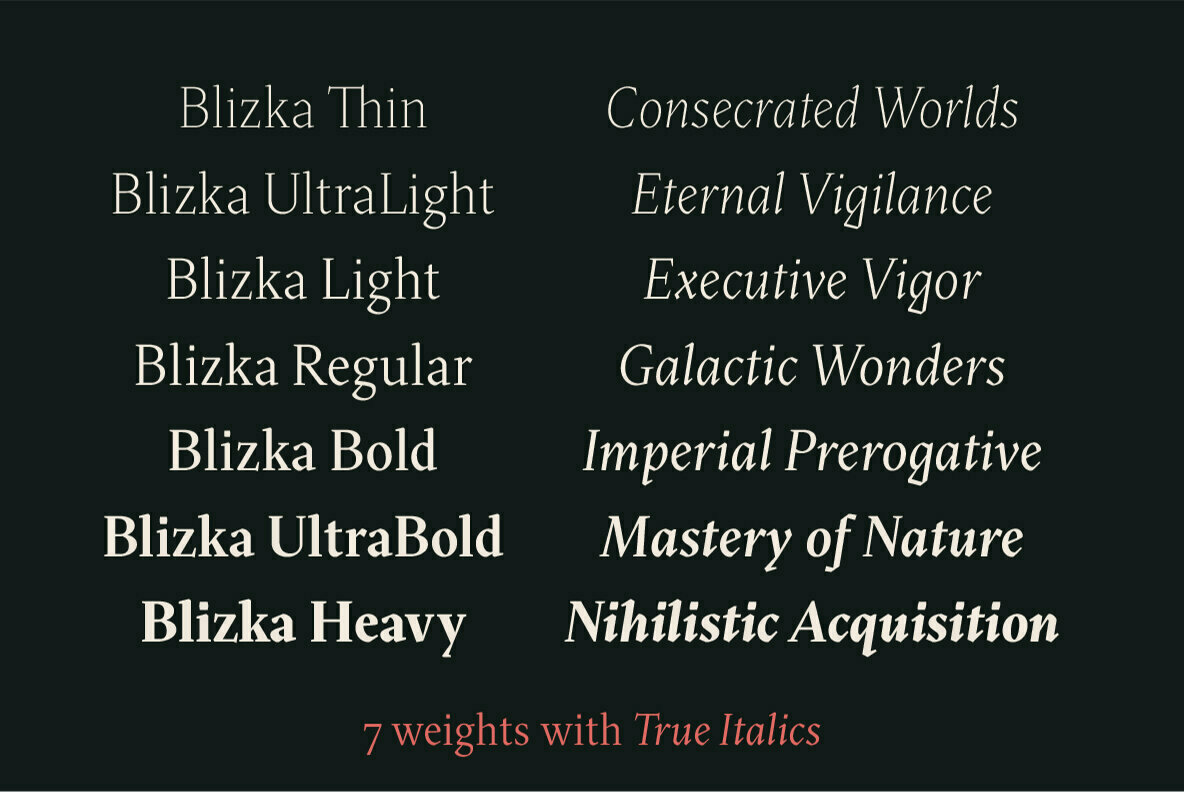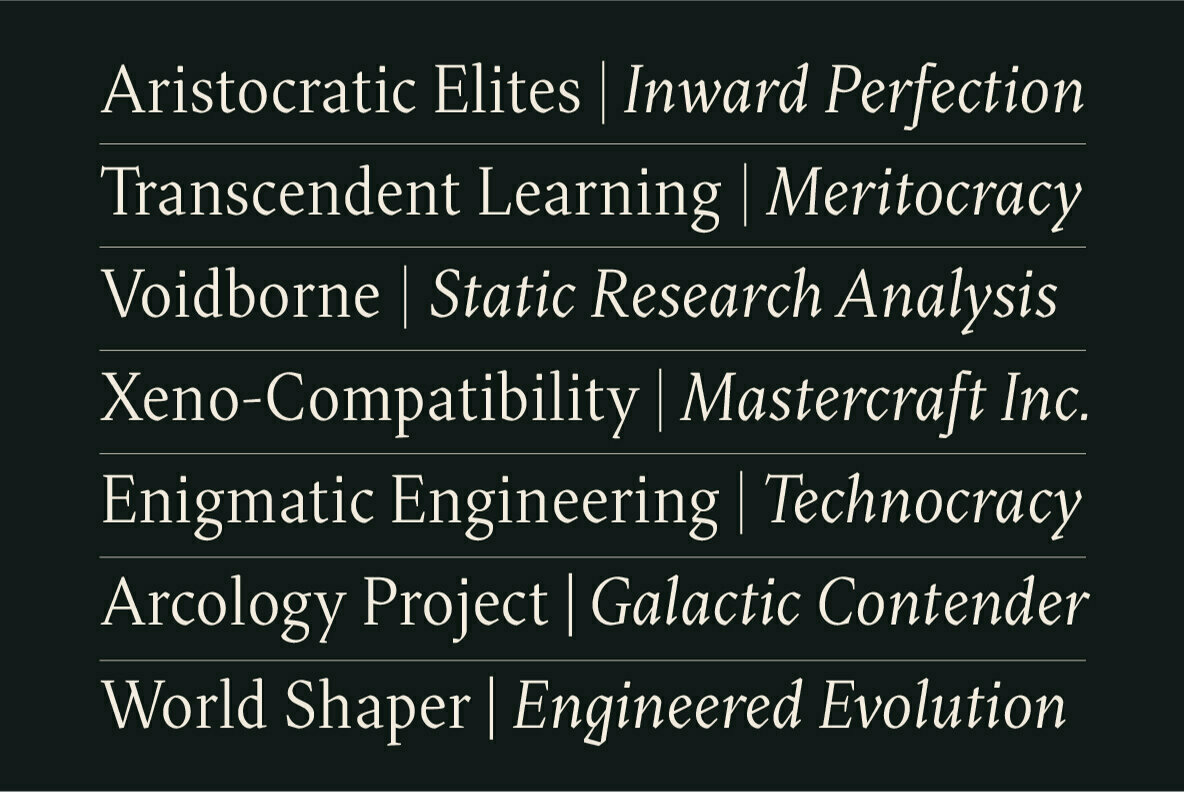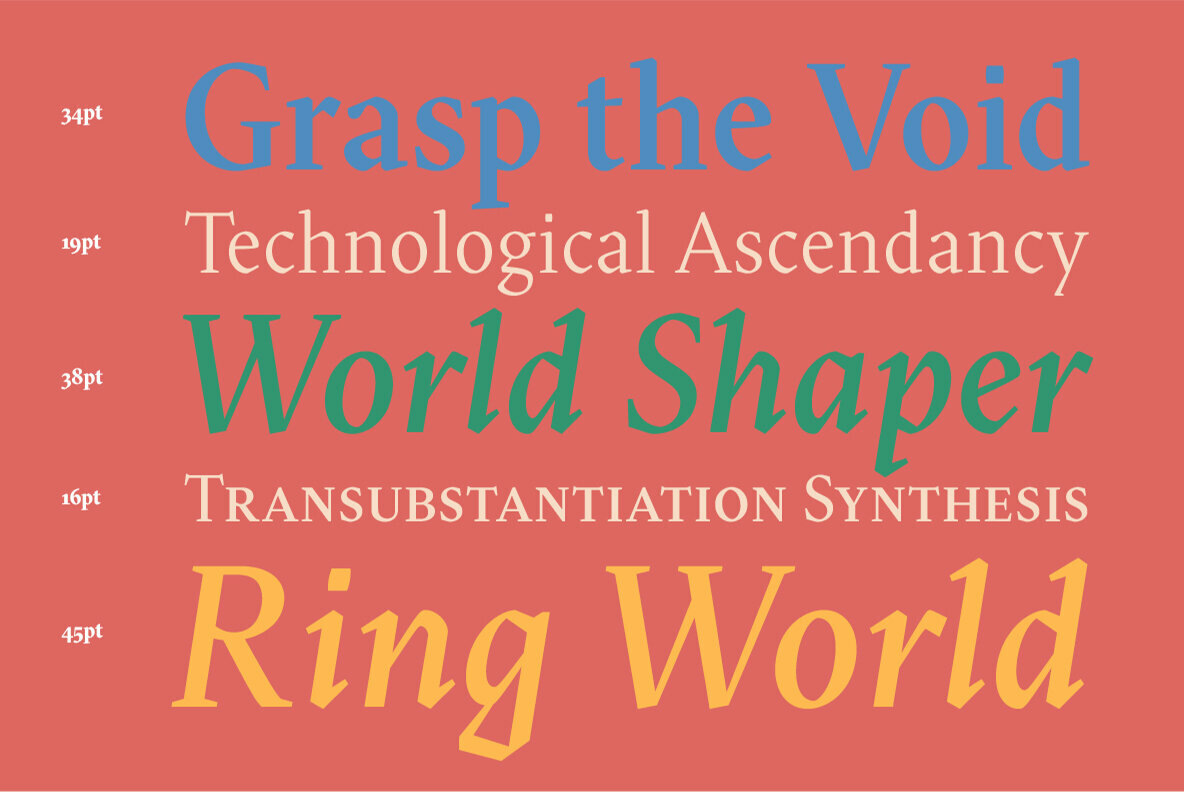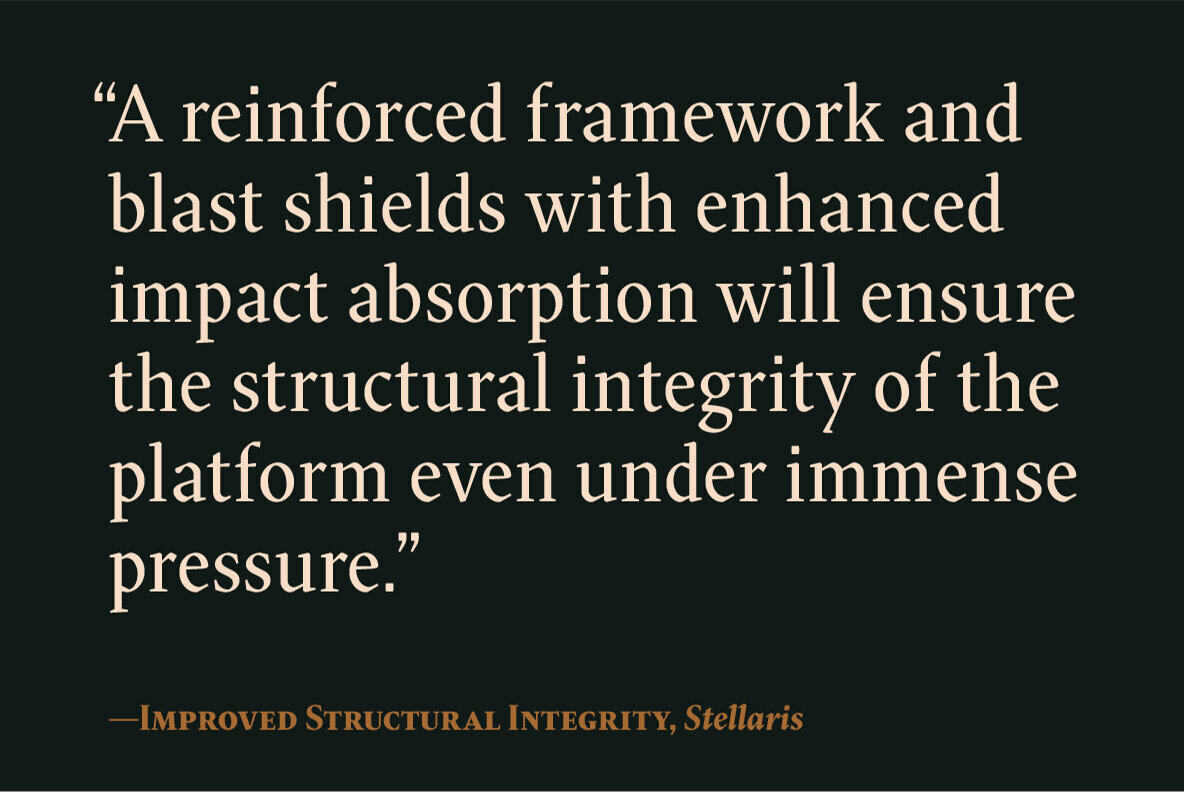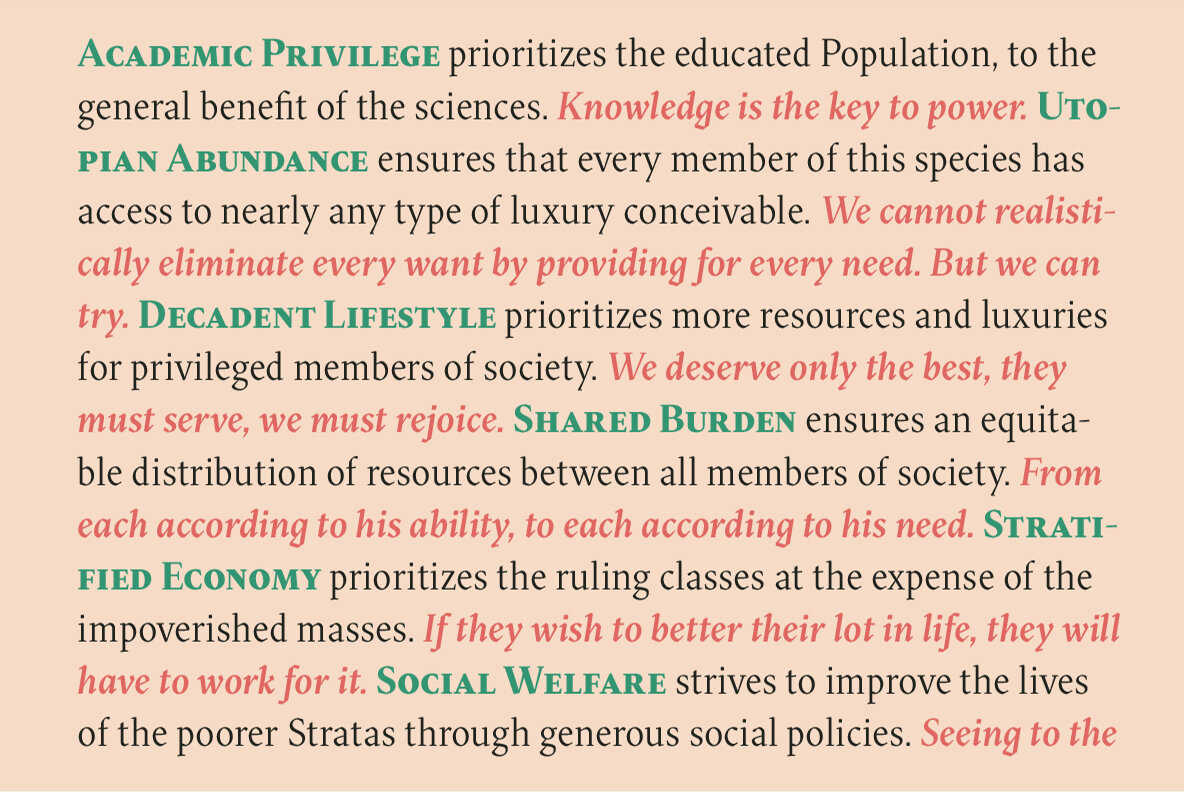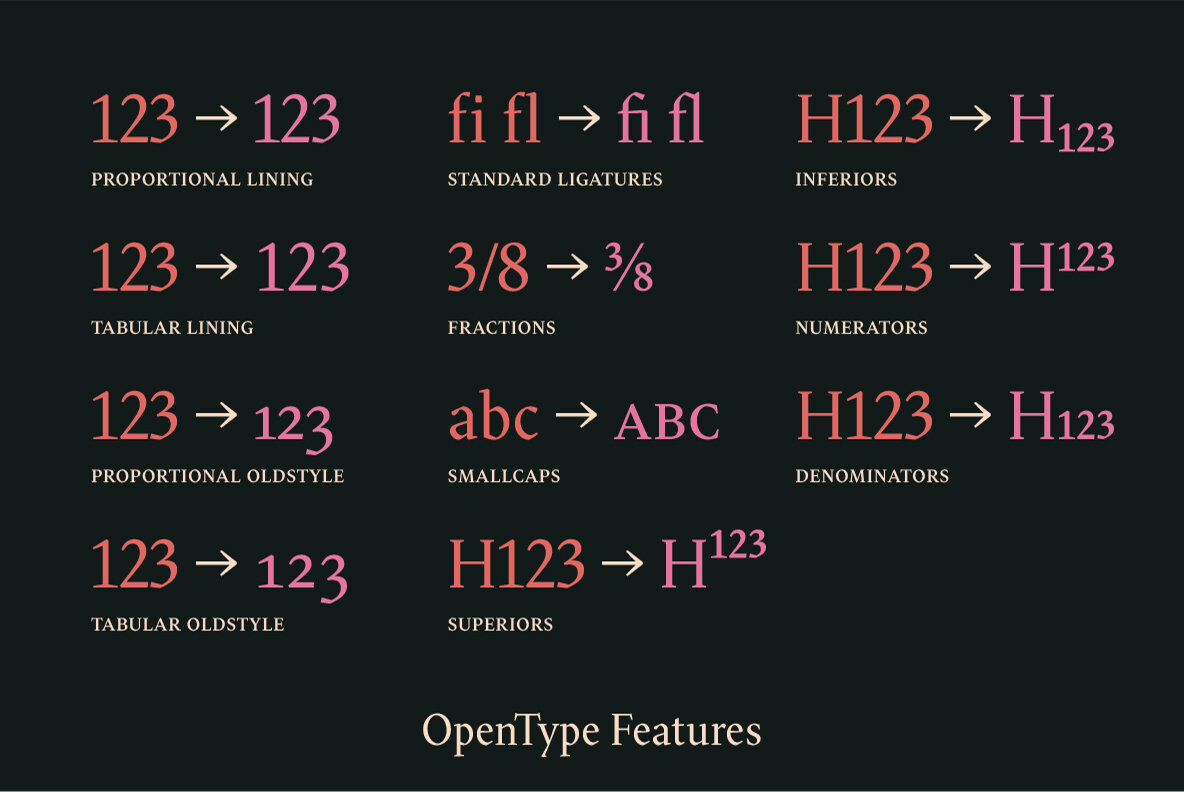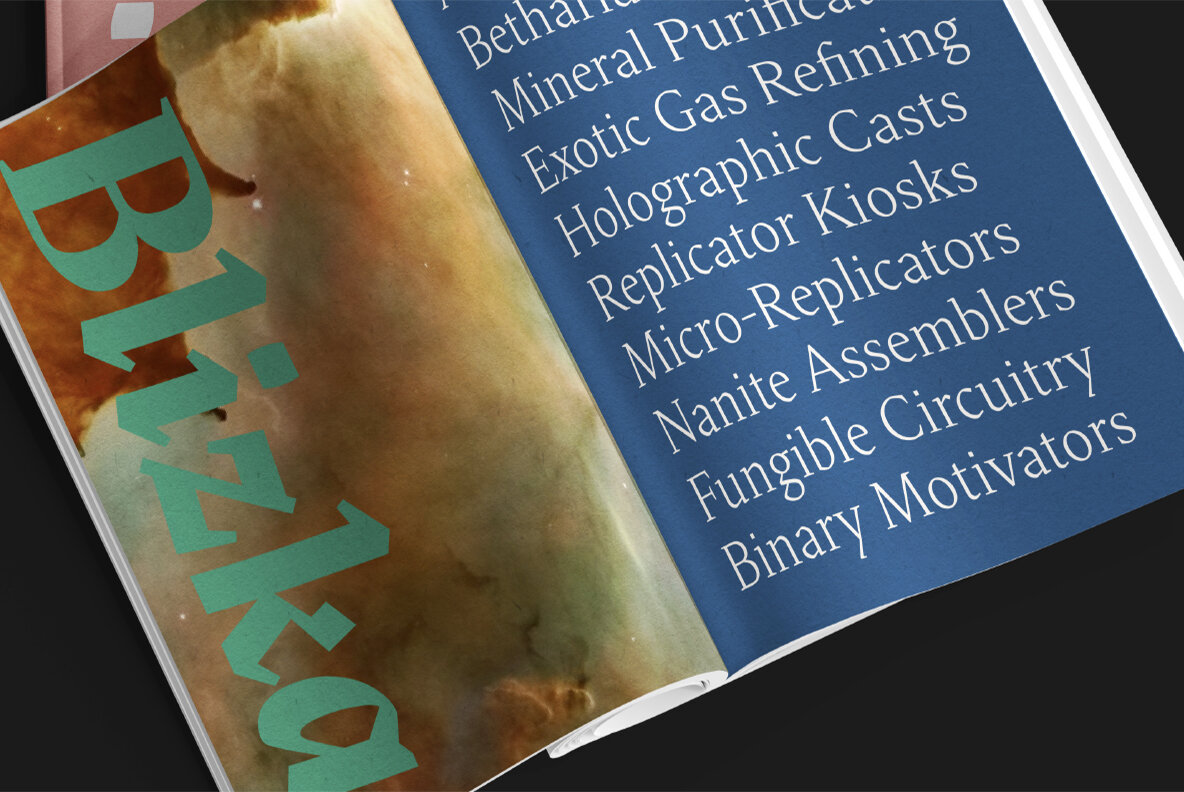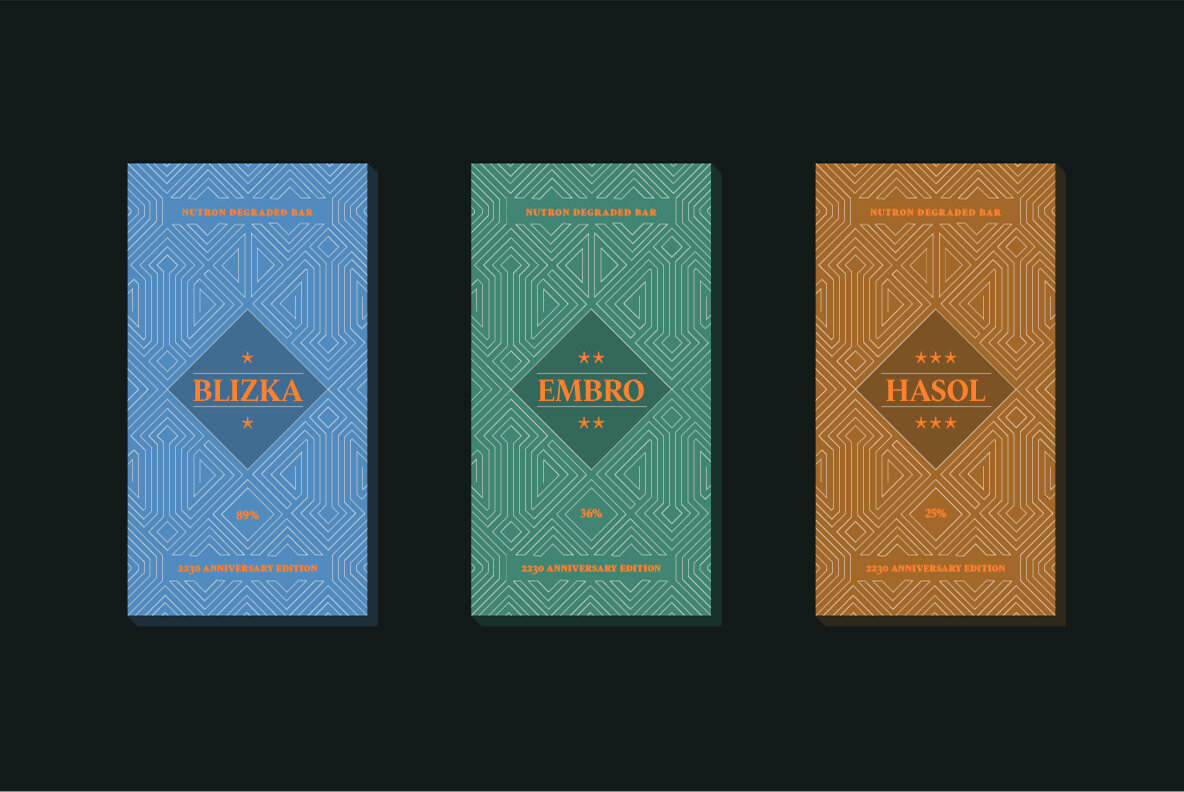
Blizka Font
Blizka is a fun, calligraphic serif with many characteristics! Inspired by the unique strokes of an artist's pen or pencil it features straight cuts in unexpected details. Great attention to detail has been taken so that all letters flow harmoniously together for an optimum reading experience on small texts.
• Support over 200 languages with full coverage of western & central European Latin.
• Beautiful Italics
• SmallCaps
• Proportional, tabular, oldstyle figures, fractions, you name it.